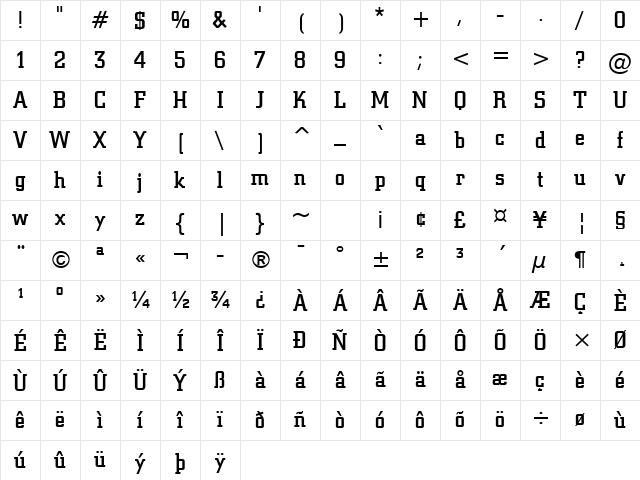
Warwick 3 Regular
Design Context for Warwick 3
Warwick 3 is a composed and adaptable typeface that performs quietly and consistently across a wide range of design contexts.